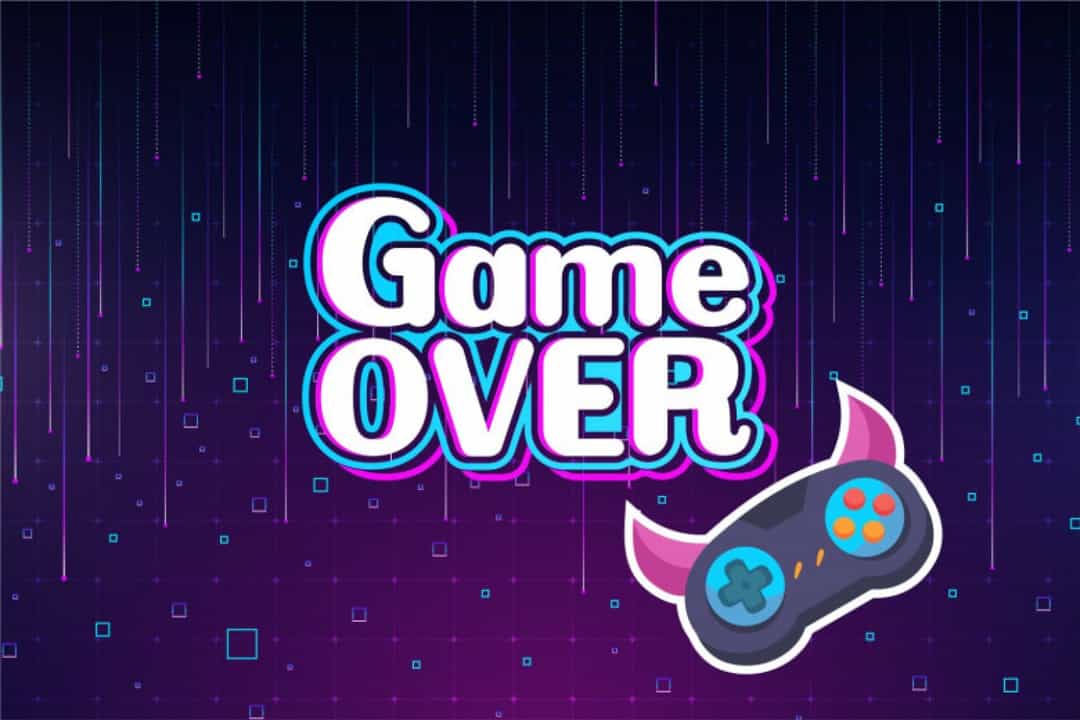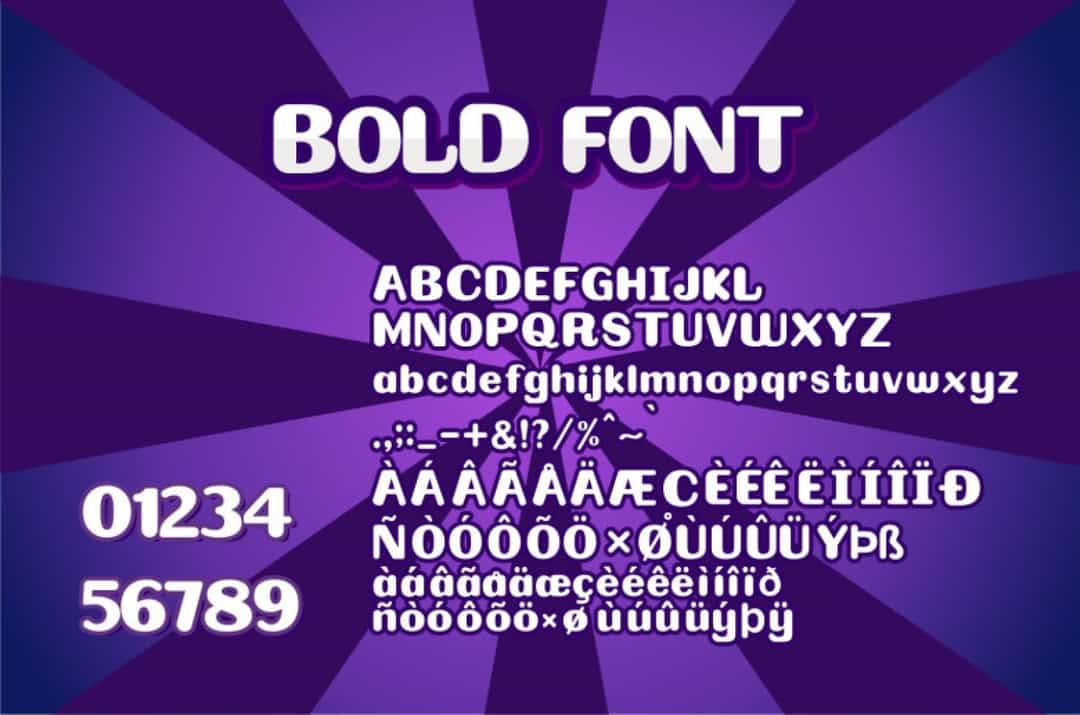
Discover Bolder Bold Display Font, part of the Display Cartoon collection—a versatile and unique font perfect for adding a personal touch to your projects. Download it for free and enjoy crafting designs with style, from invitations to social media posts. This font is available exclusively for personal use, giving you the freedom to create without limits. Unlock your creativity with Bolder Bold Display Font today!
Regular version of the Bolder Bold Font family was created by zainstudio and has a quite bold and attention grabbing design. Have fun with it and its look and feel! It is free for download and personal use and this free version comes with small letters and some special characters for personal use.